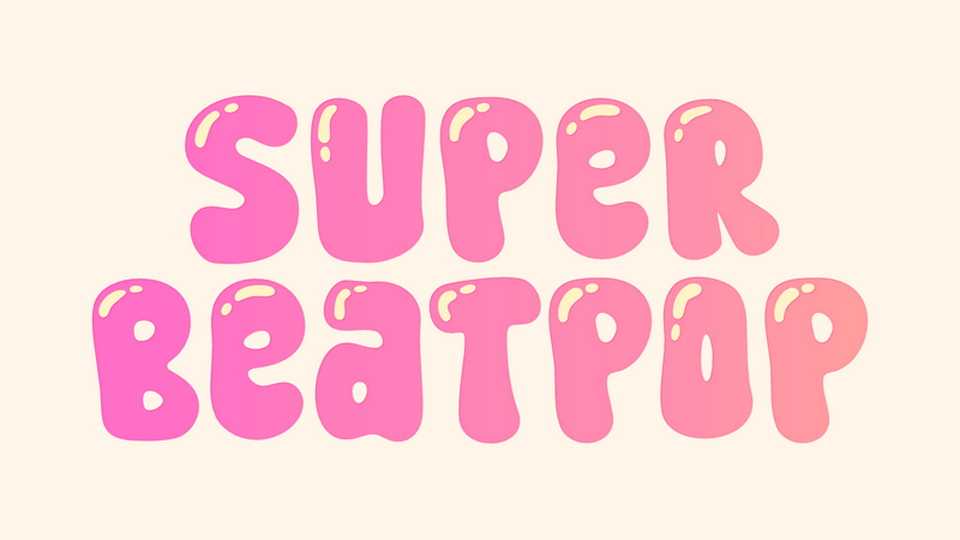
Download Super Beatpop font, a playful display typeface featuring bold, rounded letterforms with glossy, bubble-like details. Its smooth shapes and shiny highlights create a fun, candy-inspired aesthetic